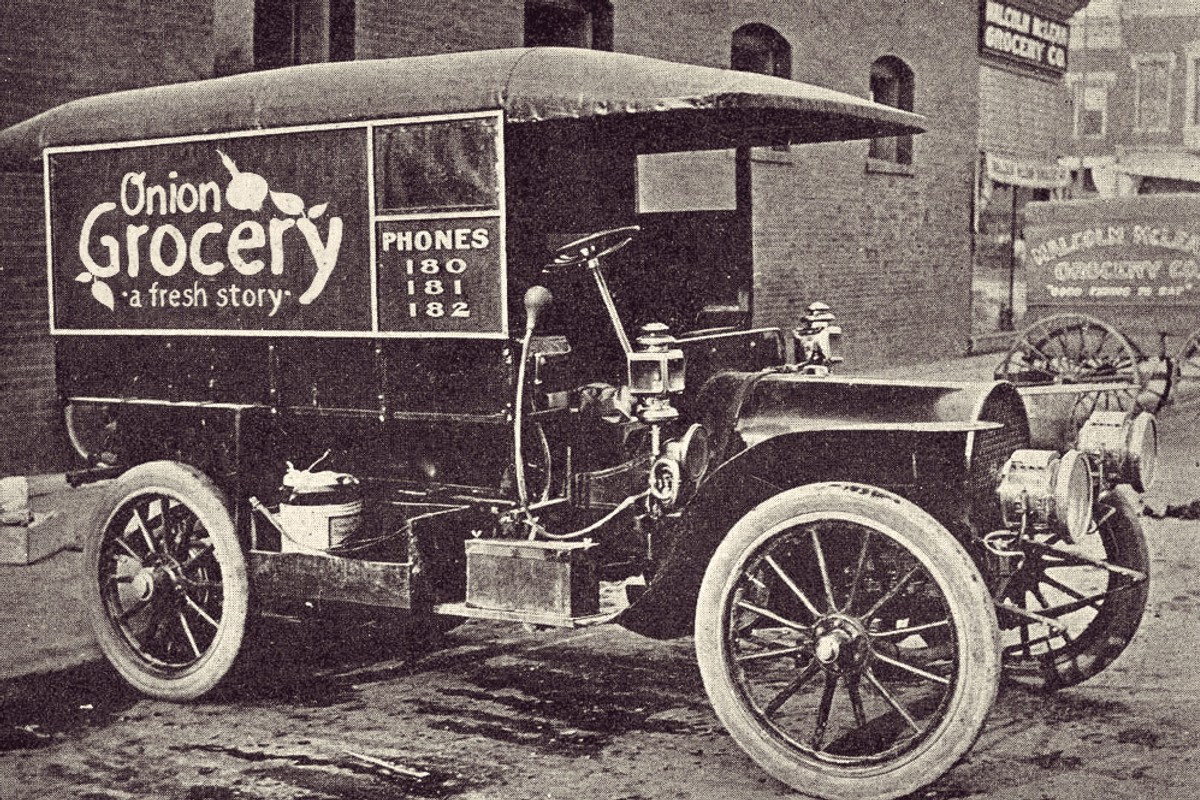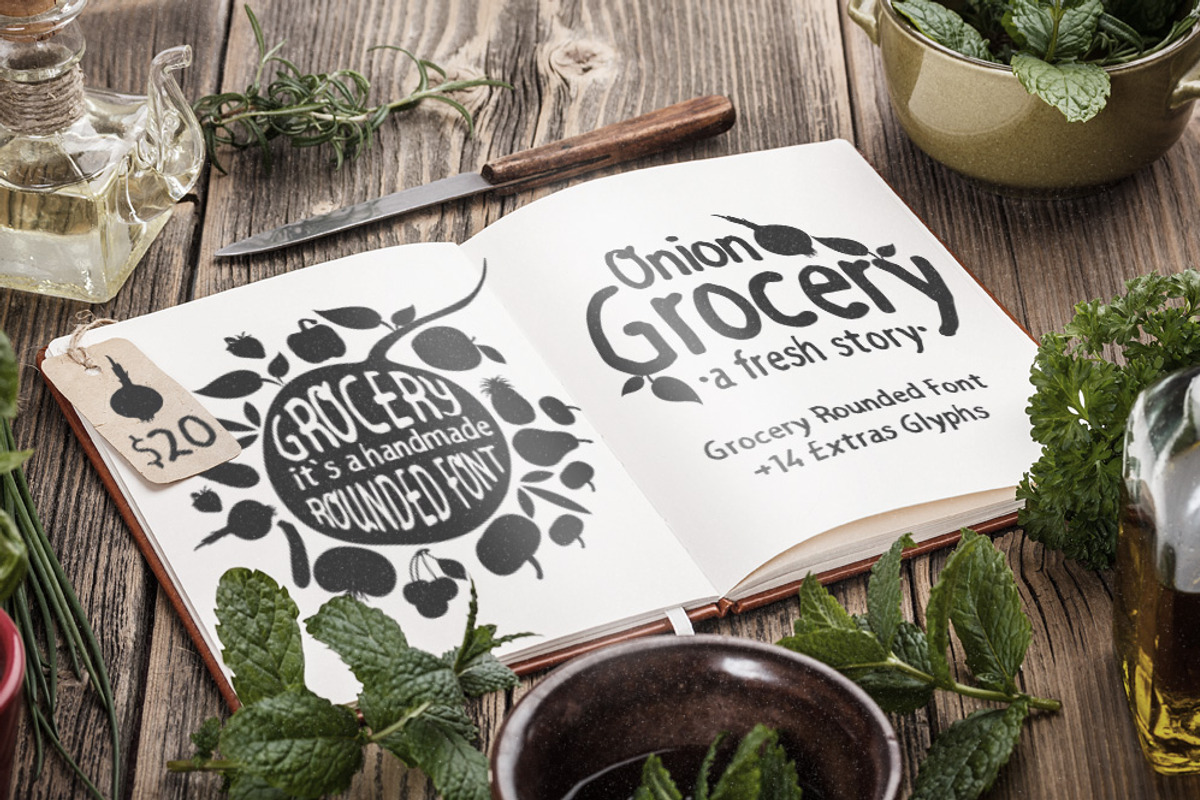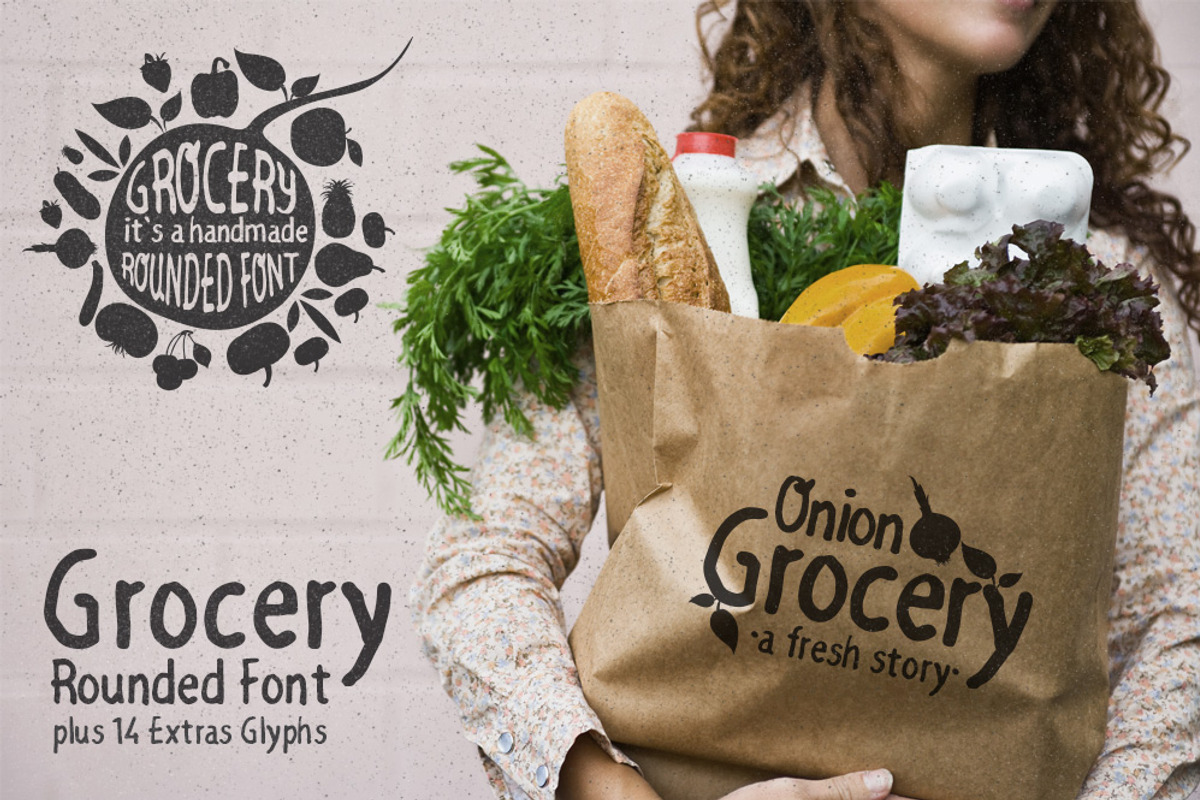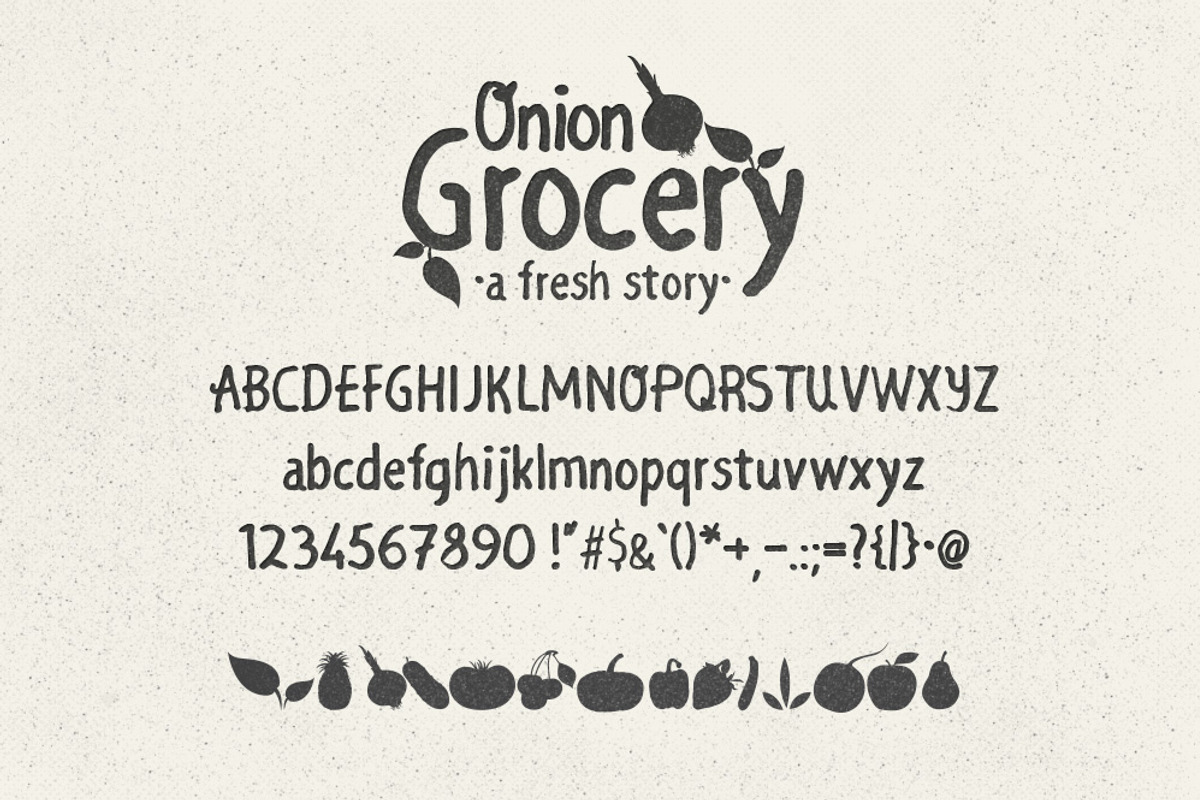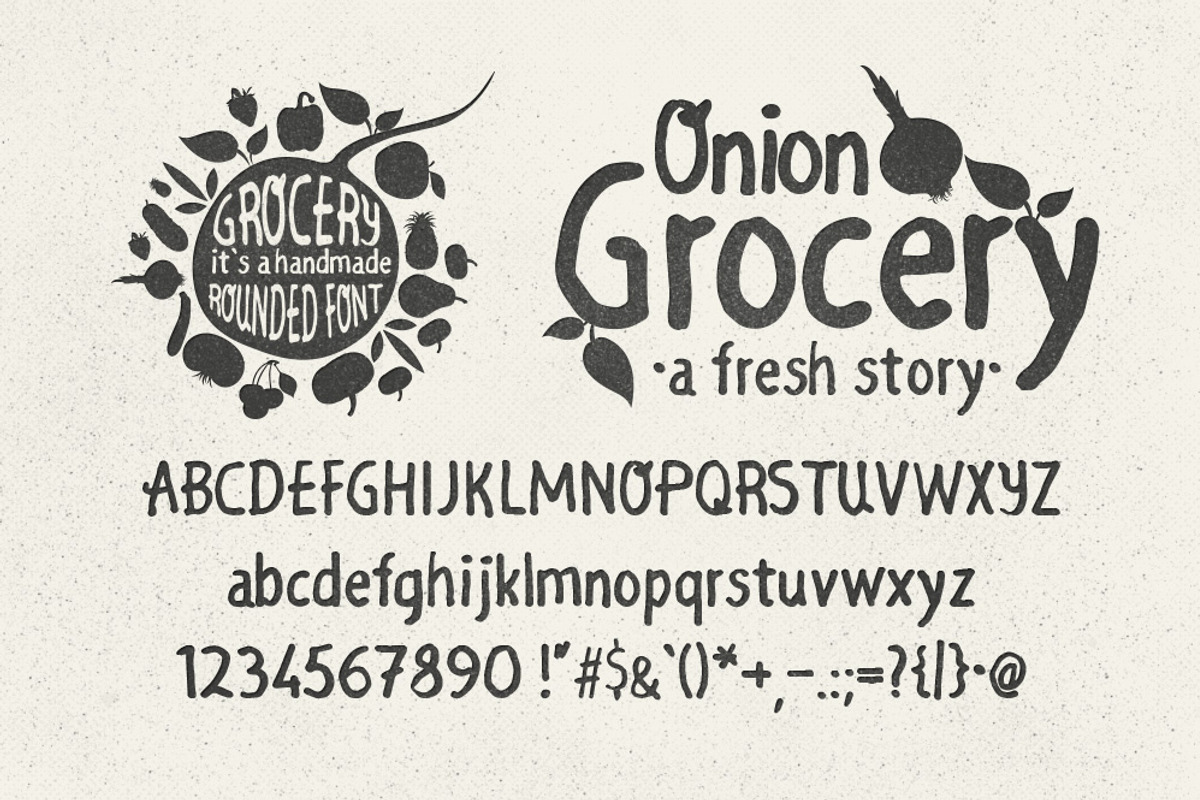
Grocery Rounded Font
Grocery Rounded Font by DesignSomething is a font selected for branding, posters, packaging, typography.
- The font includes all letters uppercase and lowercase all punctuation signs and 14 bonus vegetable / fruits glyphs.
Why Grocery Rounded Font is worth a look
Grocery Rounded Font by DesignSomething fits naturally into Branding, posters, packaging, typography.